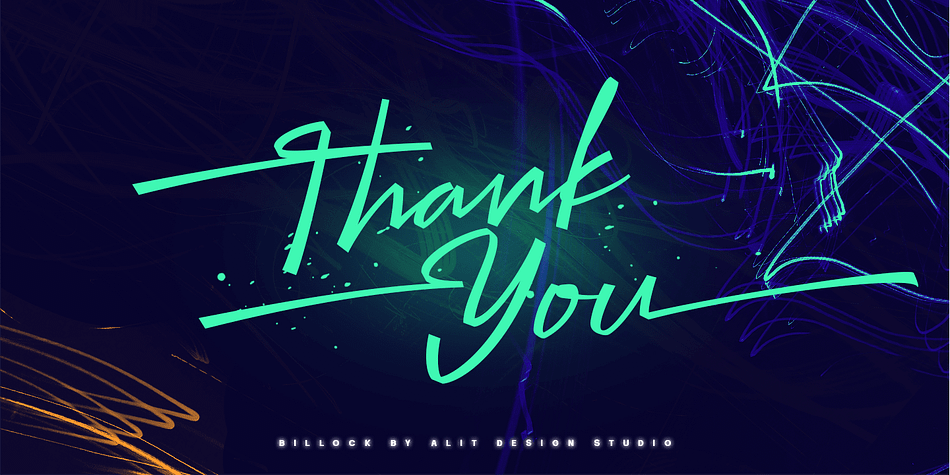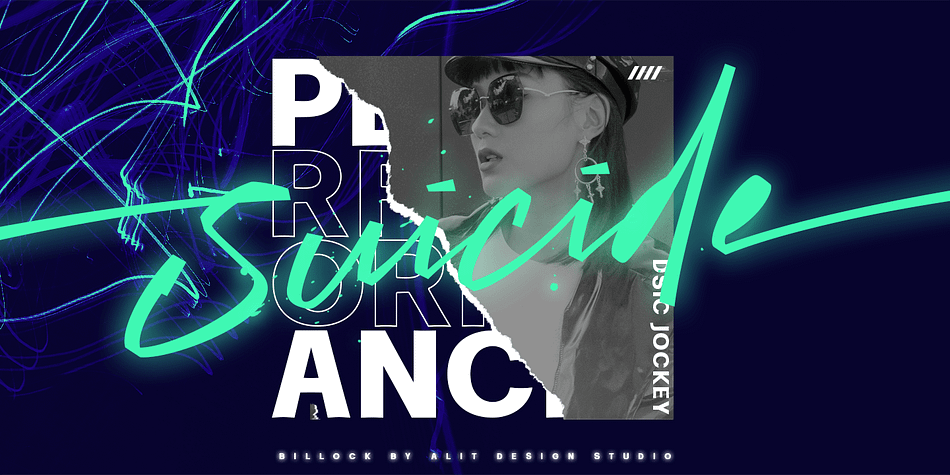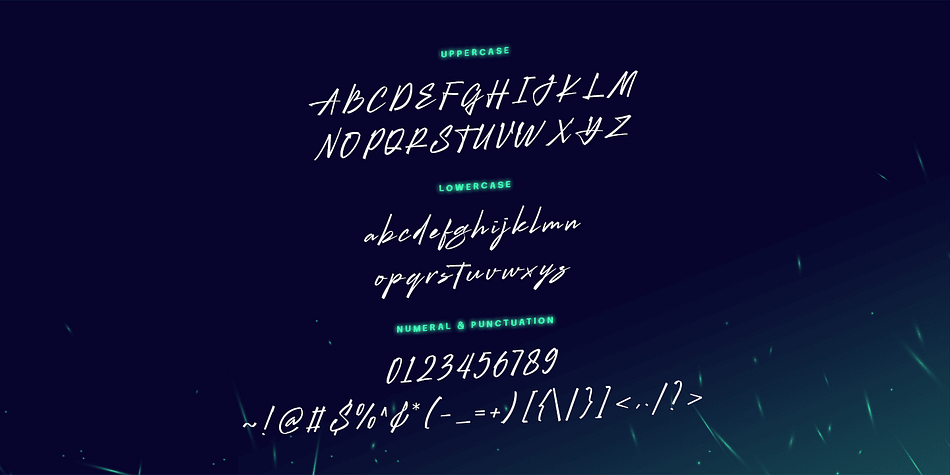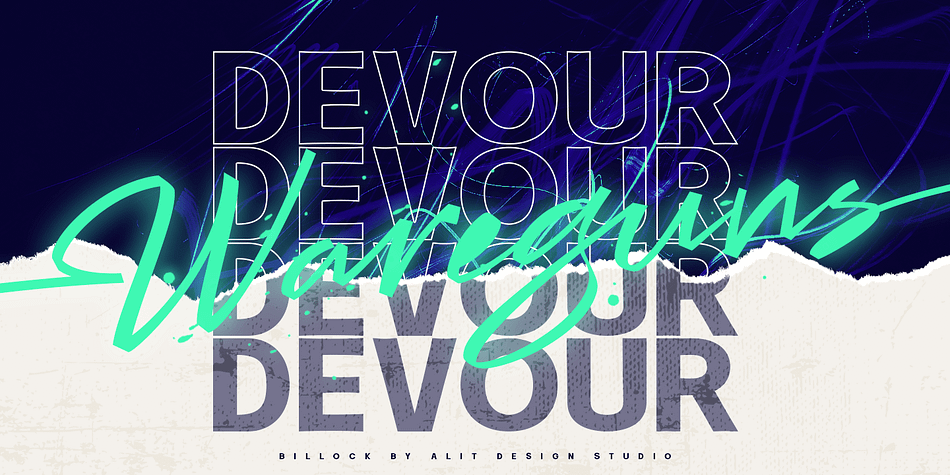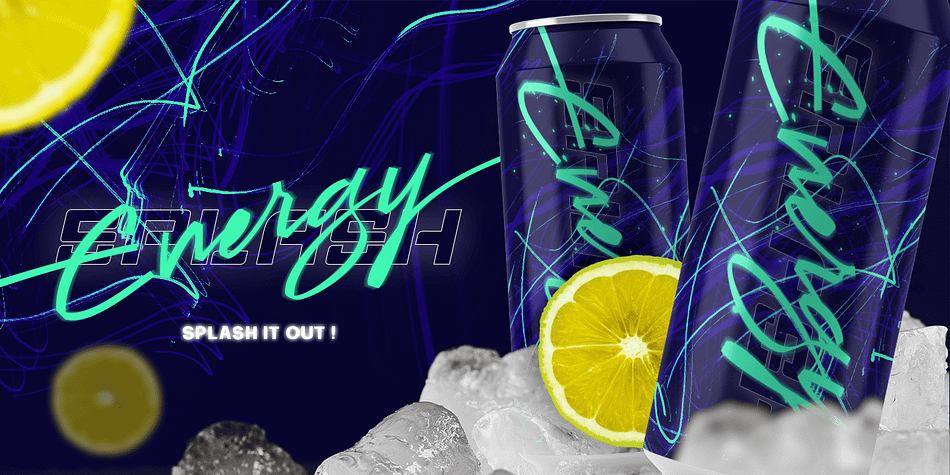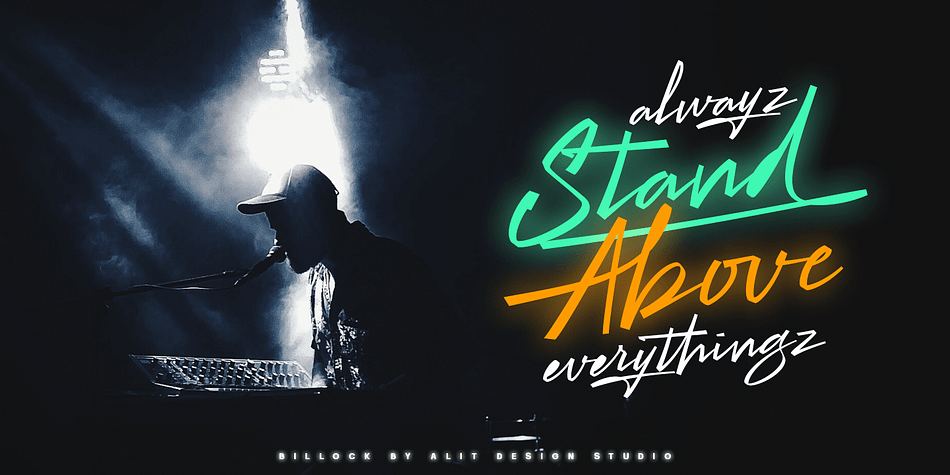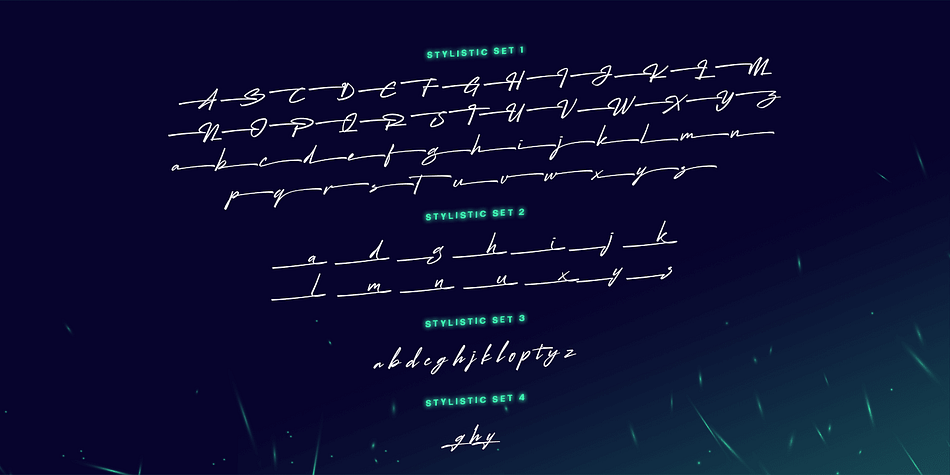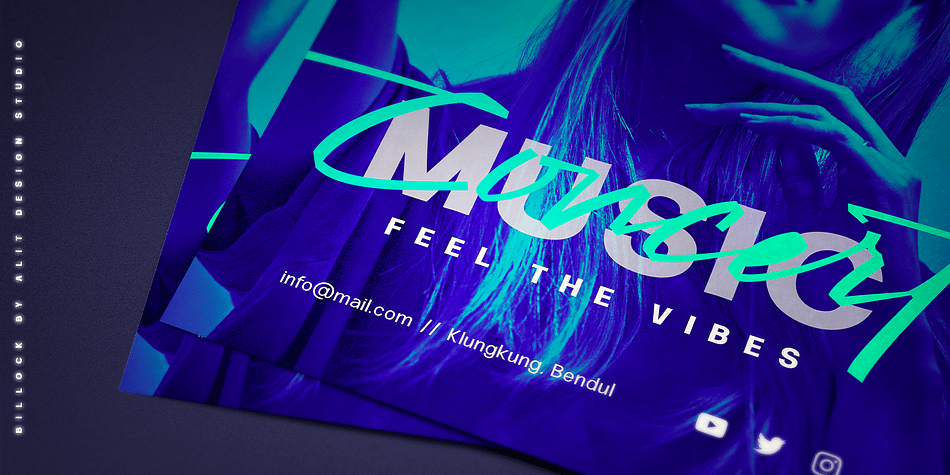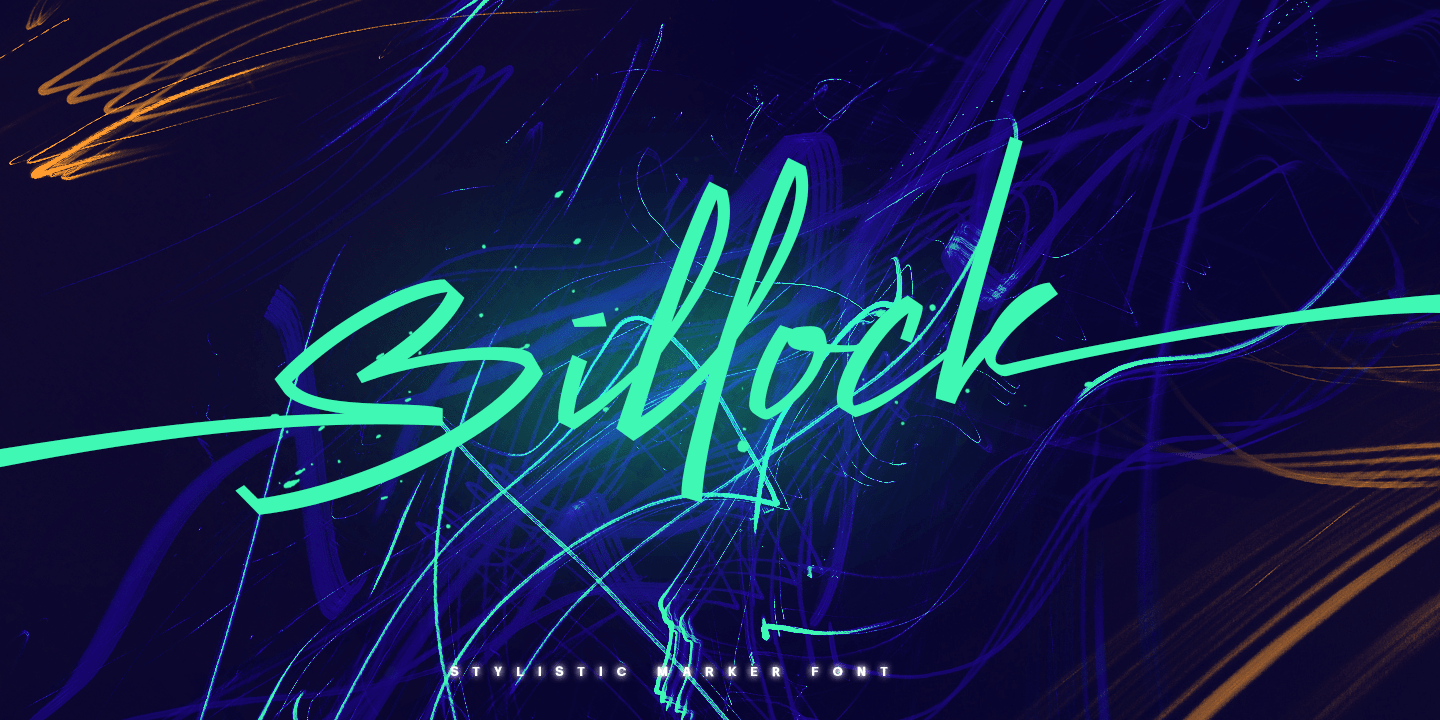
Billock
Designed by Alit Suarnegara, Billock is a brush script font family published by Alit Design.
The Billock script font is inspired by the strokes of a highlighter marker that has a bold square character combined with a dynamic signature script style. Combined with the concept of bright and neon colors, the design of the Billock font becomes more sporty and modern. This Billock script font is very suitable to be the latest collection of your font library, because it has many and very unique swashes and alternatives that make the designs you will make look different and cool.
The Billock Script font is perfect for magazine cover designs, brochures, flyers. Instagram ads, Canva Design and so on with unique and modern concepts. besides that this font is very easy to use both in design and non-design programs because everything changes and glyphs are supported by Unicode (PUA).
The Billock Script contains 887 glyphs with many unique and interesting alternative options.